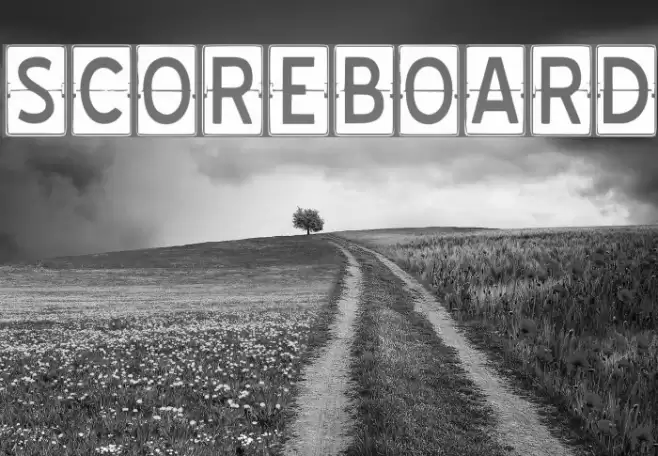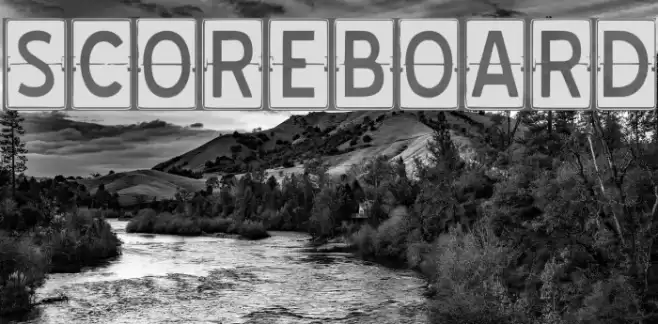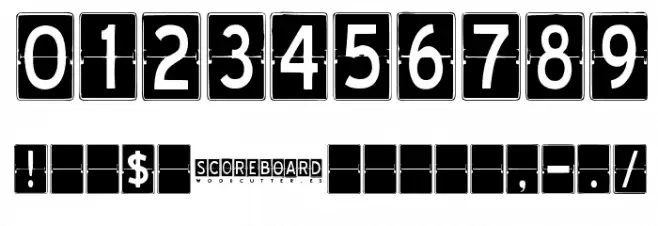
SCOREBOARD Font
SCOREBOARD Description
This font is inspired by the classic mechanical flip scoreboard design, featuring bold and clear characters that are enclosed within rectangular frames. Each character is distinctly separated by a thin line, reminiscent of the flipping mechanism of traditional scoreboards. The font has a strong geometric structure with uniform stroke widths, providing excellent legibility and a modern, industrial feel. The characters are all uppercase, with numerals and a selection of punctuation marks, making it suitable for digital displays or retro-themed projects. The design is both functional and stylish, capturing the essence of vintage sports and transportation signage.
A bold, geometric font inspired by classic mechanical flip scoreboards from Uncategorized fonts.
- Proposed Projects: Ideal for digital displays, sports-themed designs, retro signage, and transportation-related projects.
- Overall Style: Vintage
- Use Case: Headlines, Logos, Digital displays